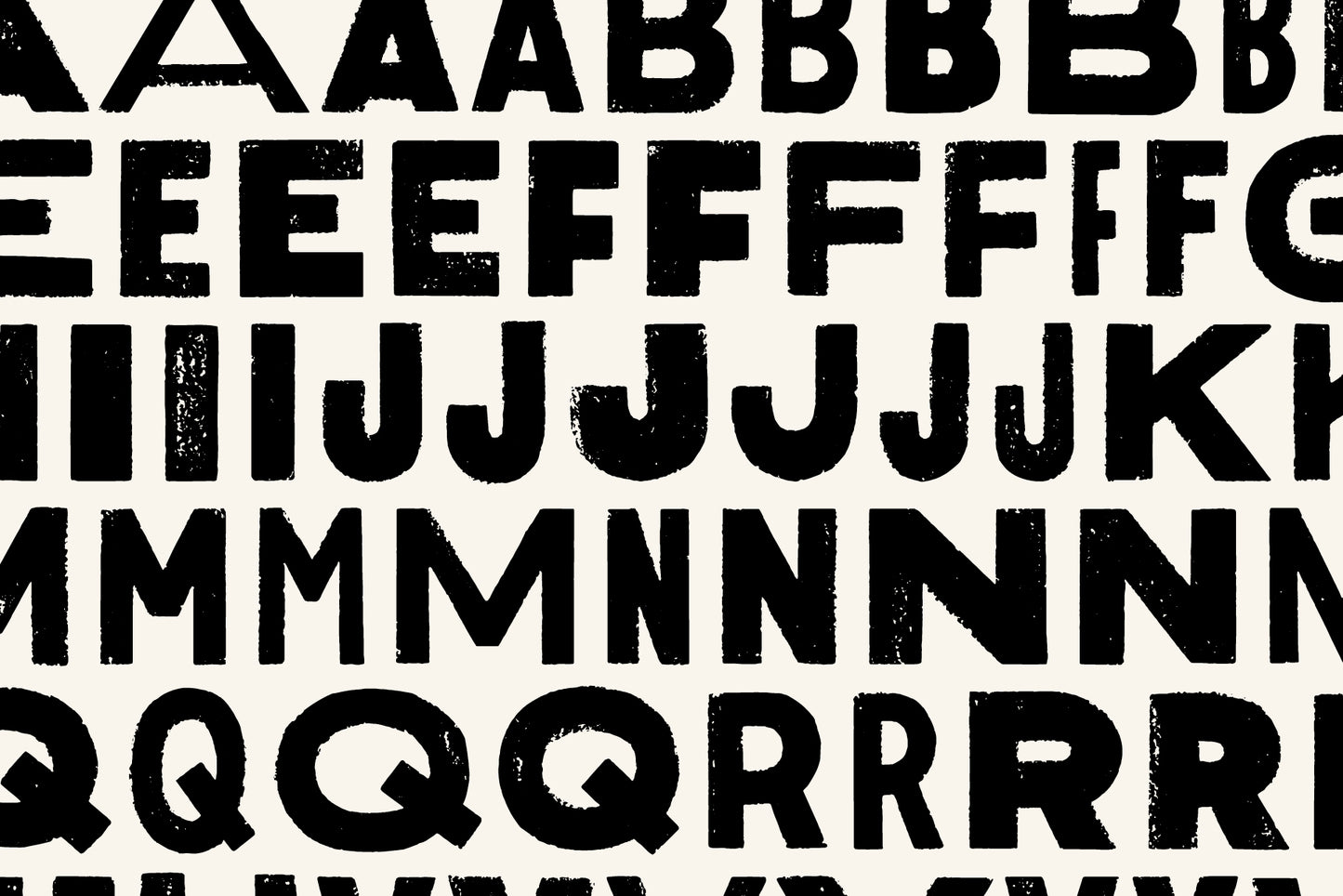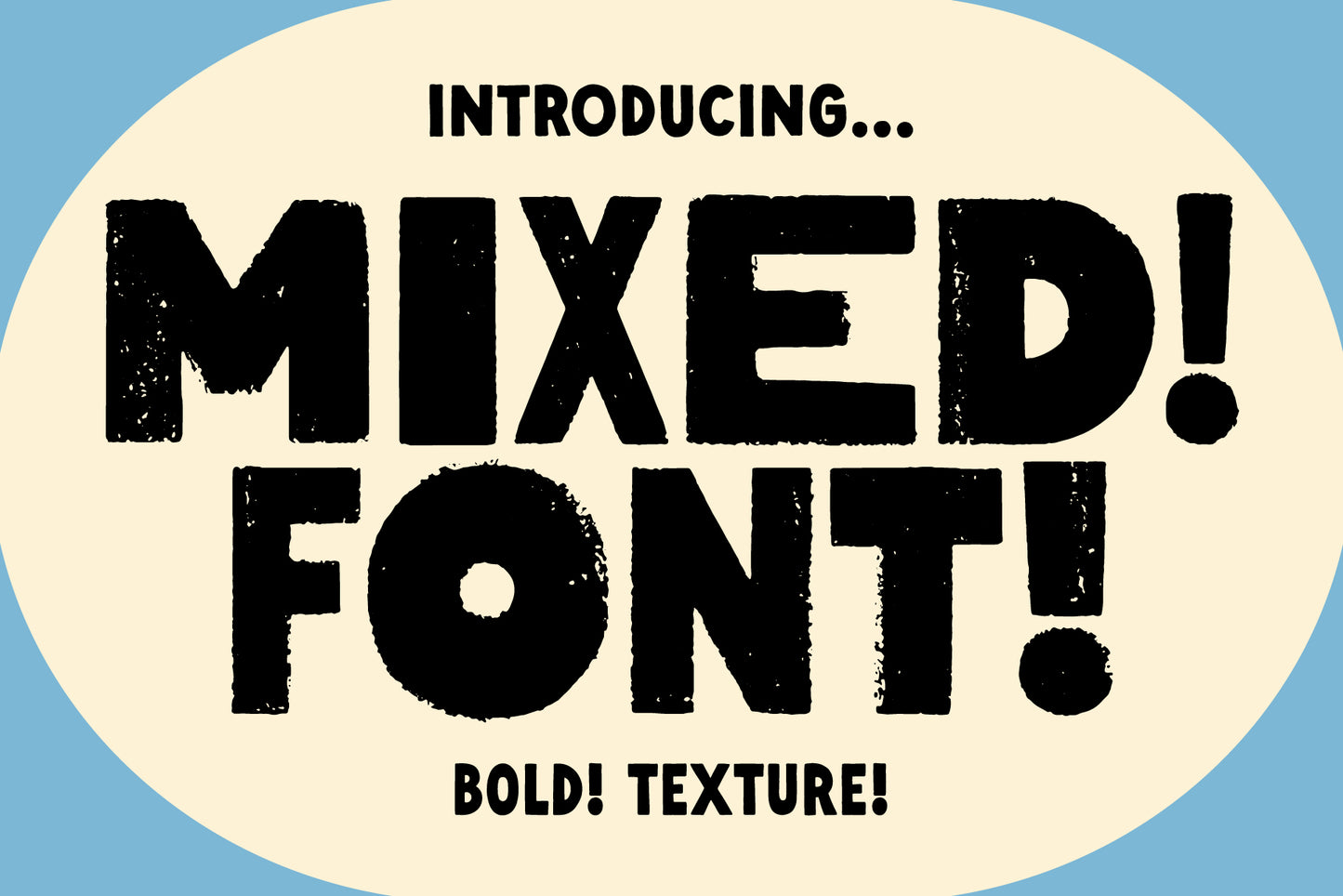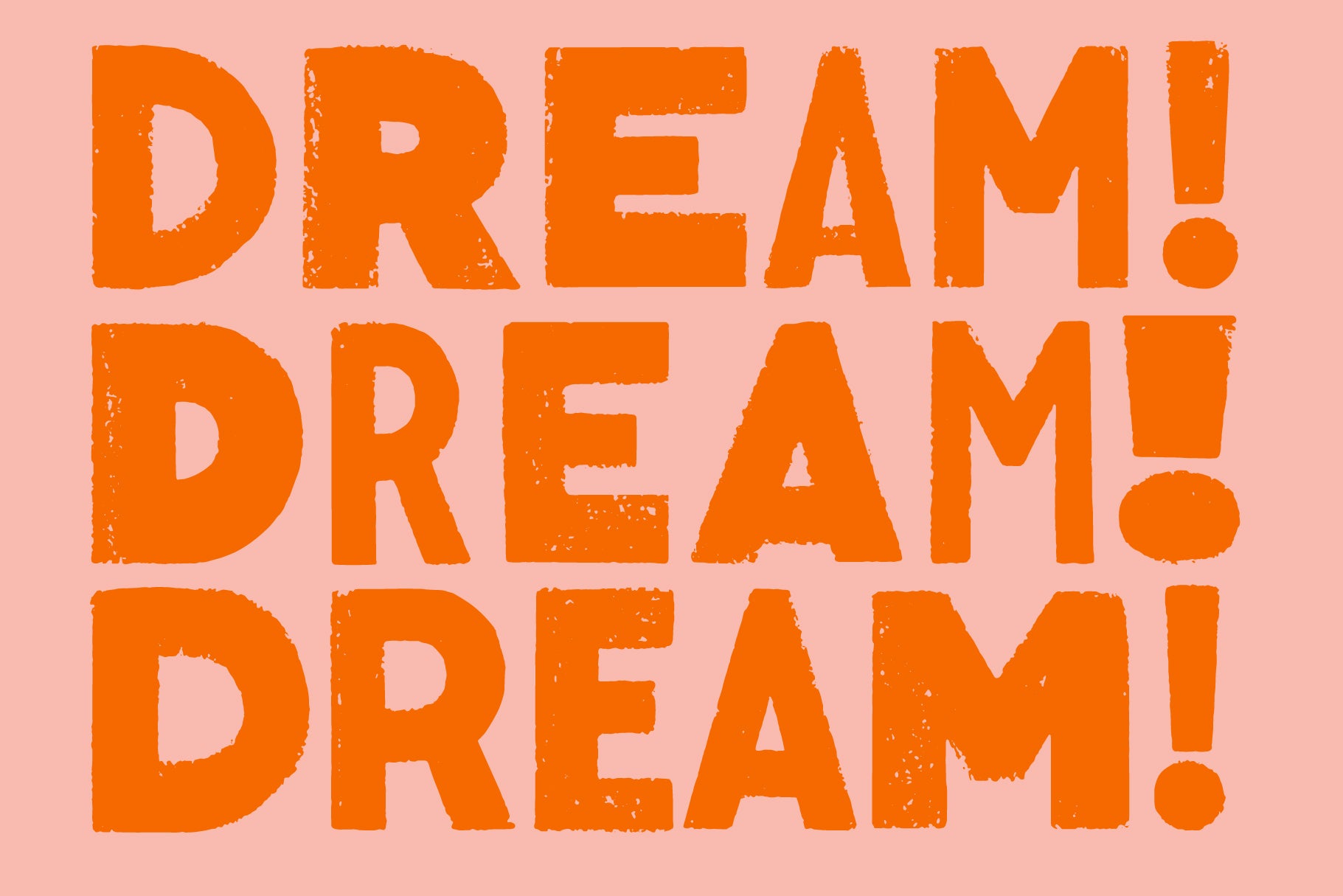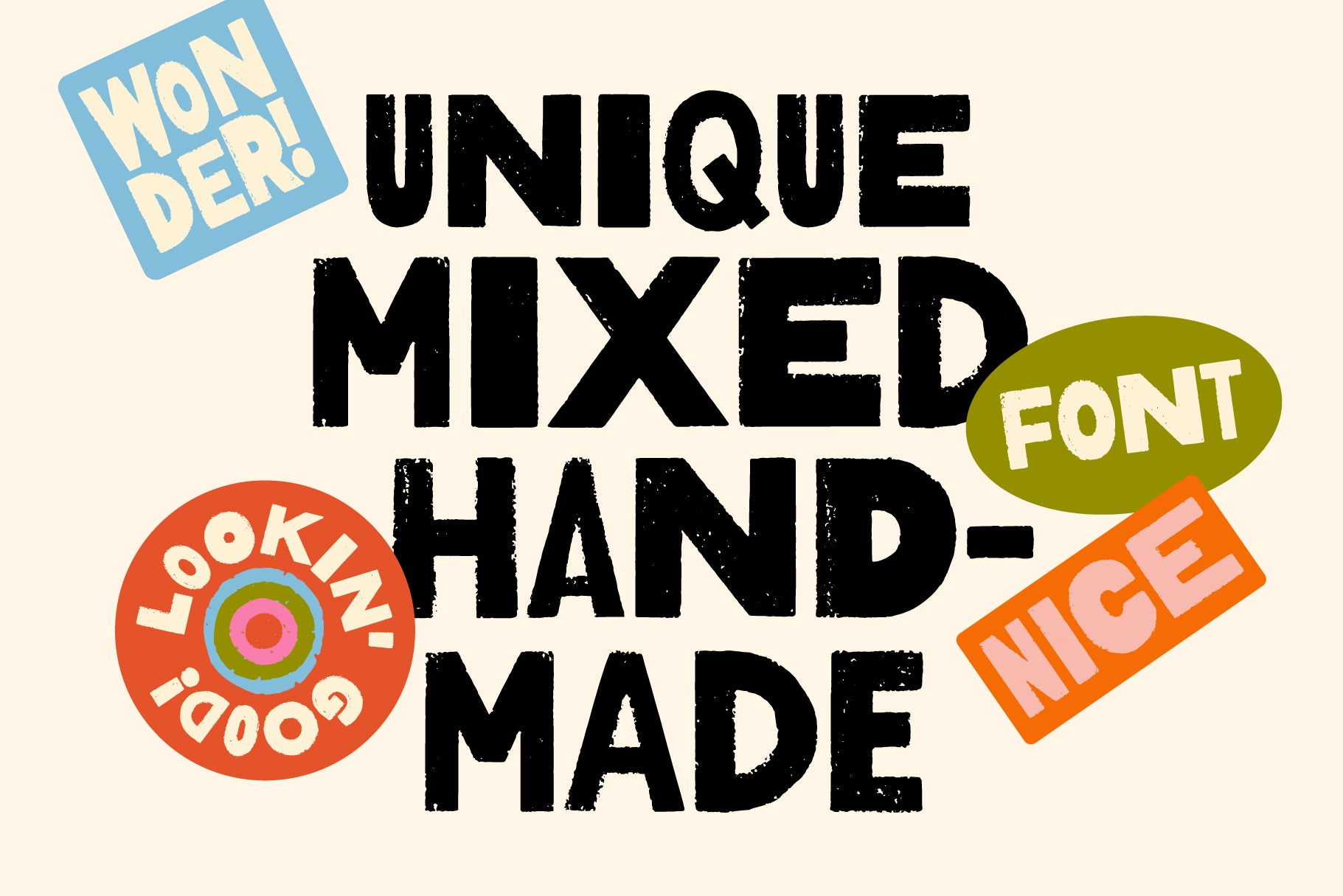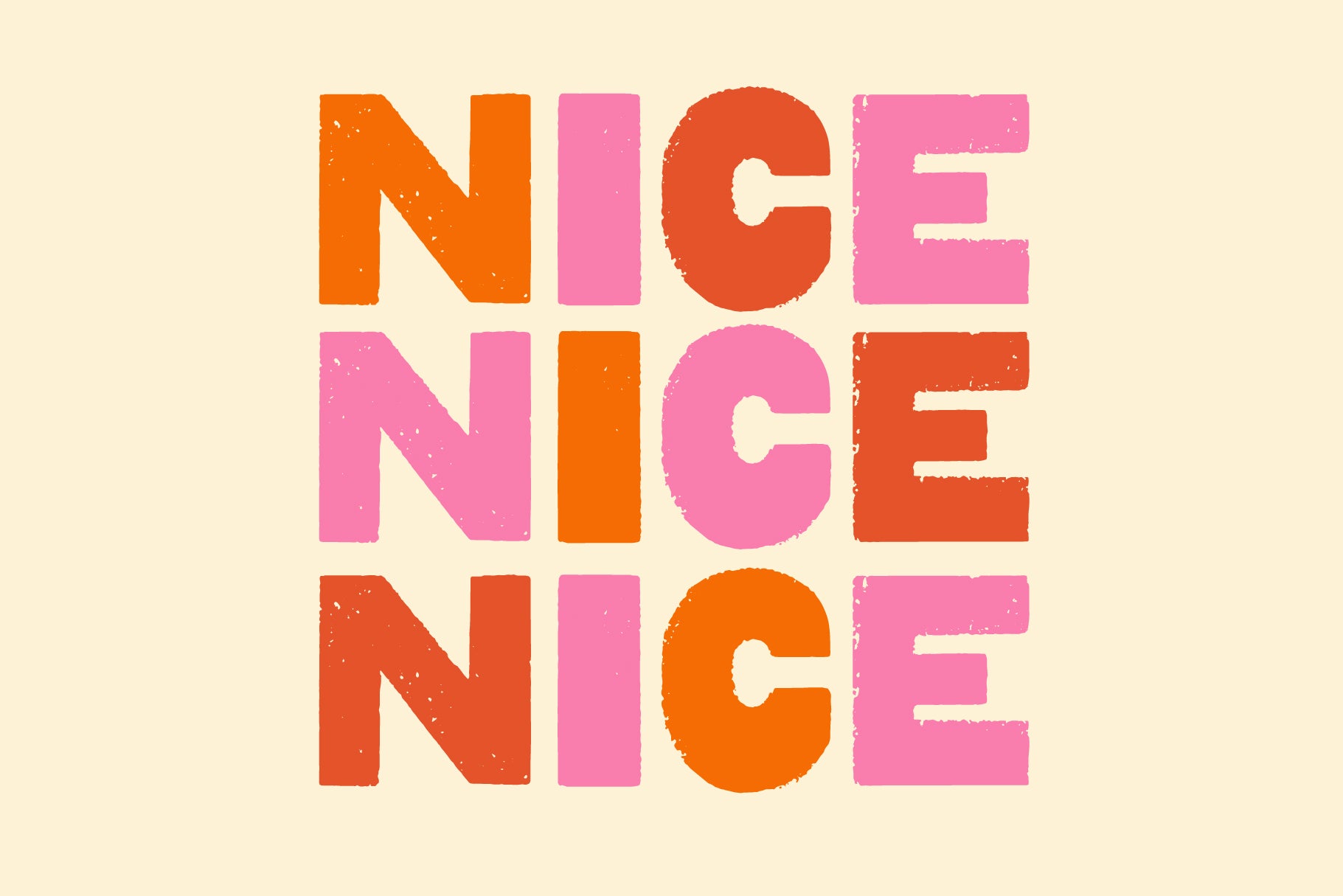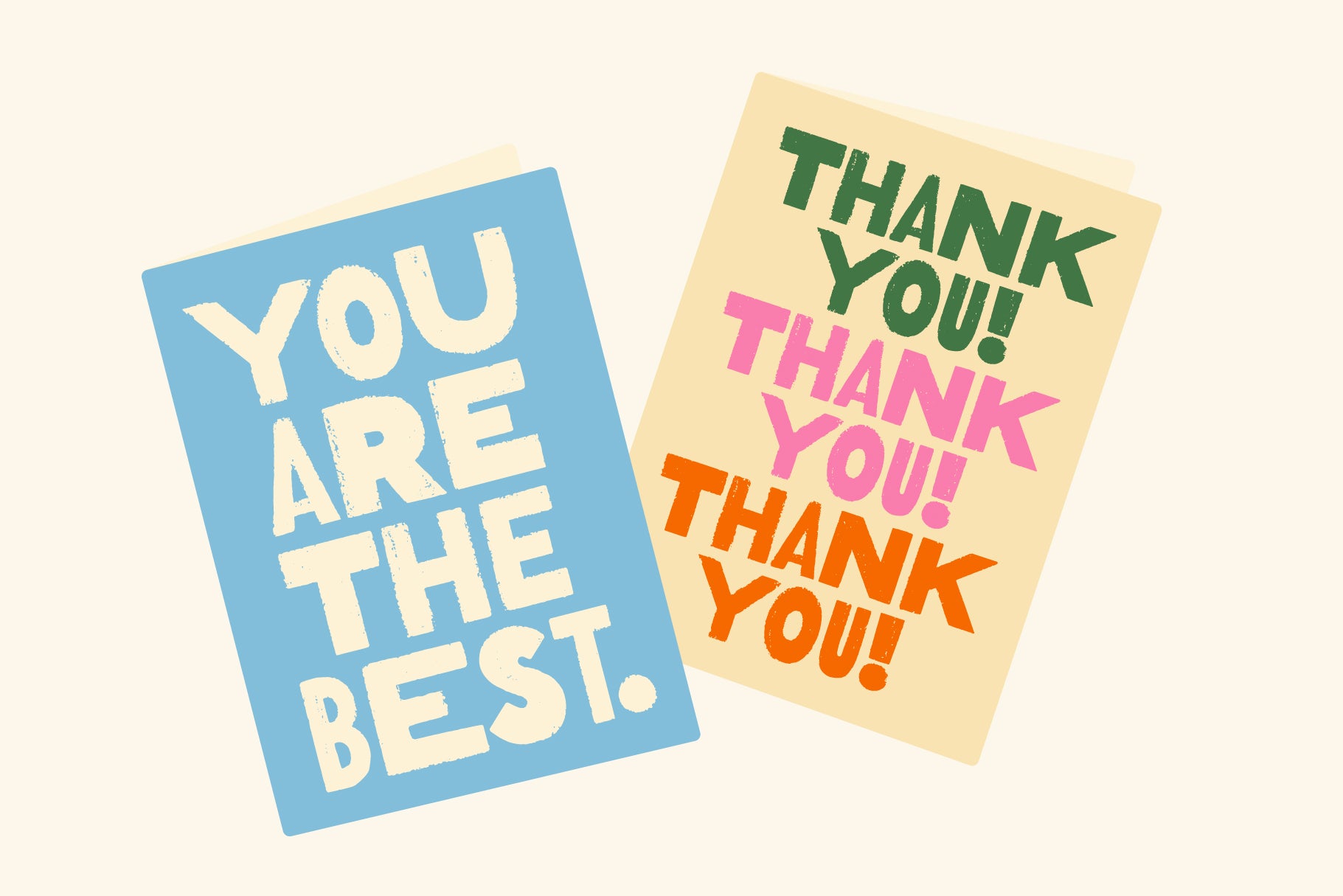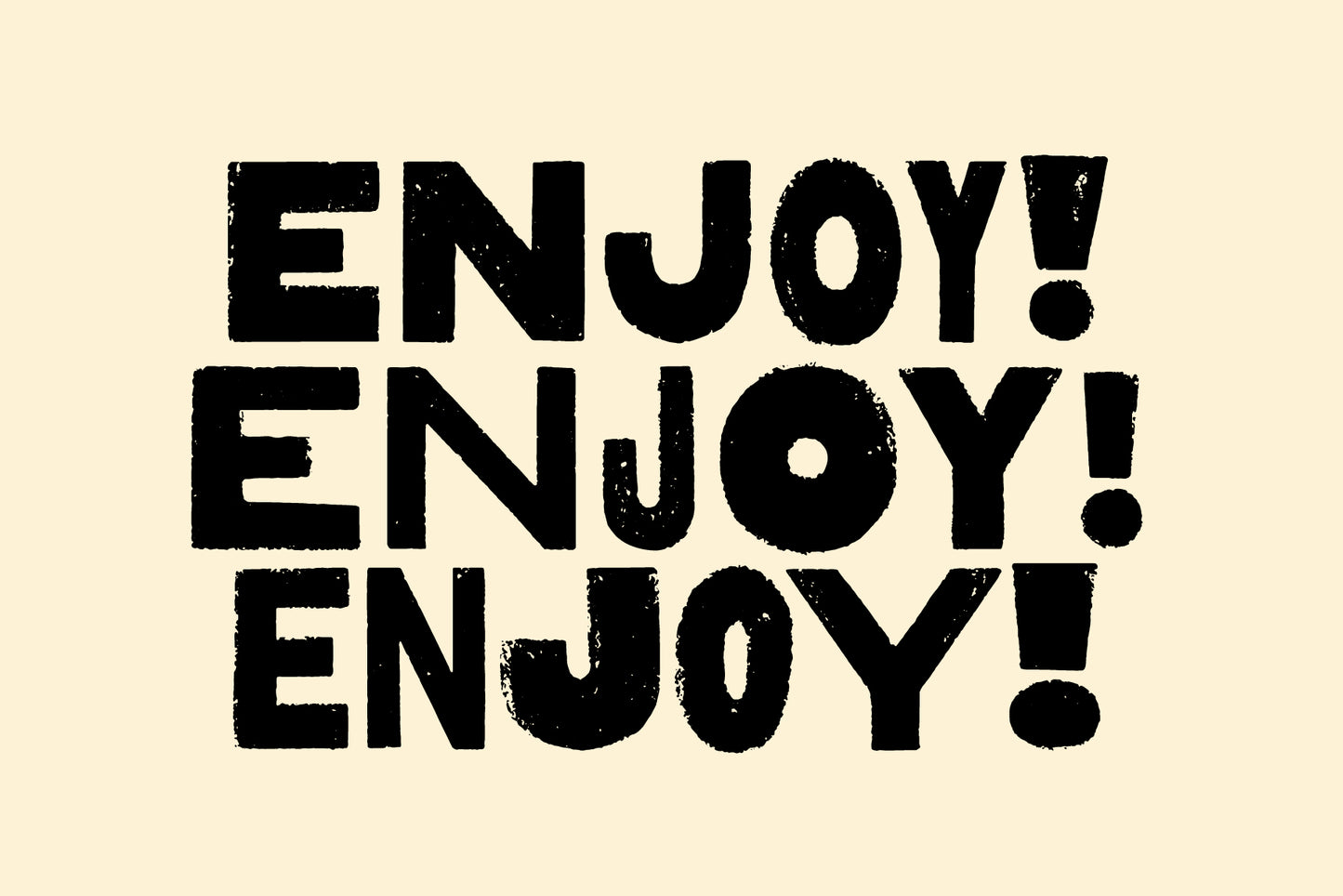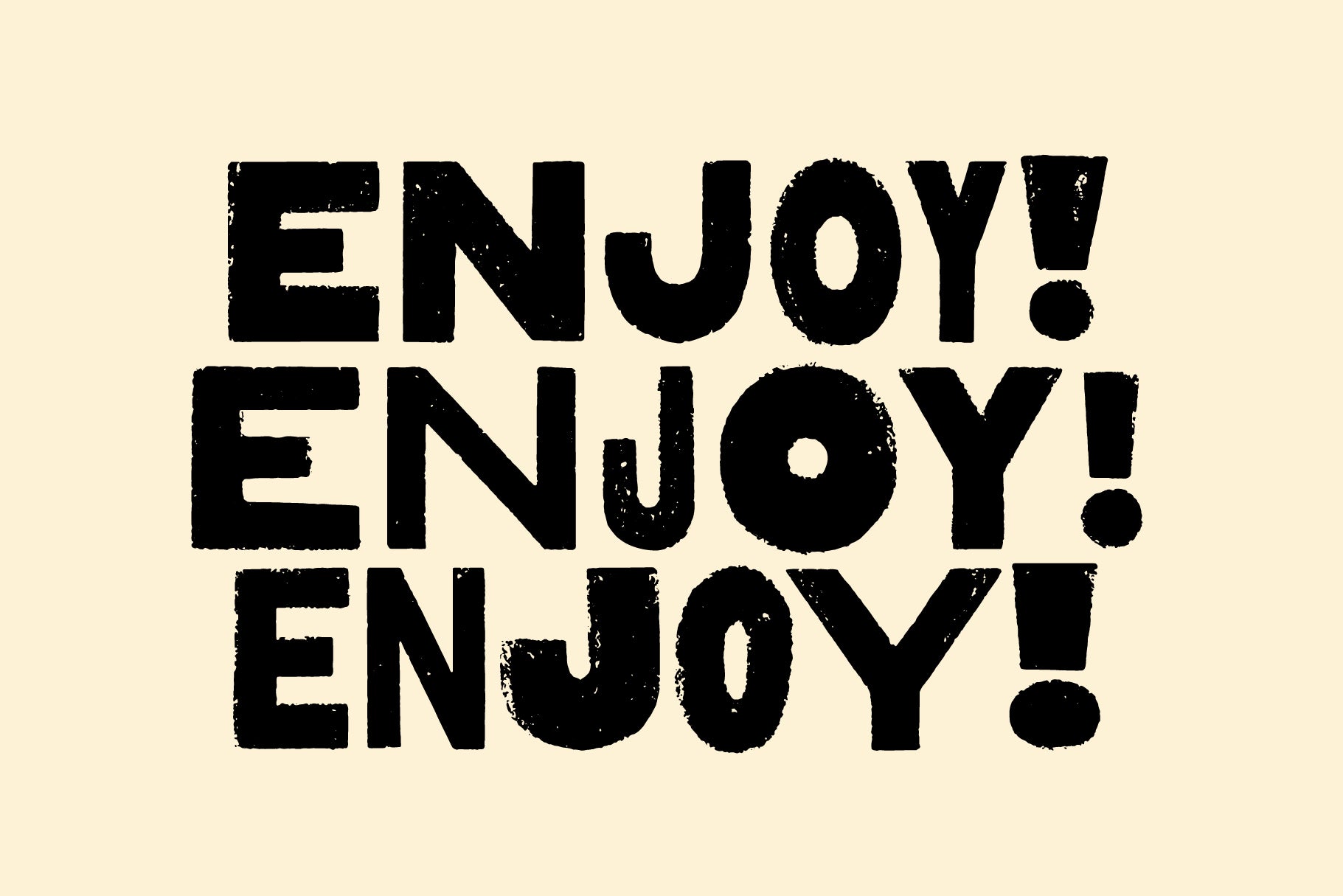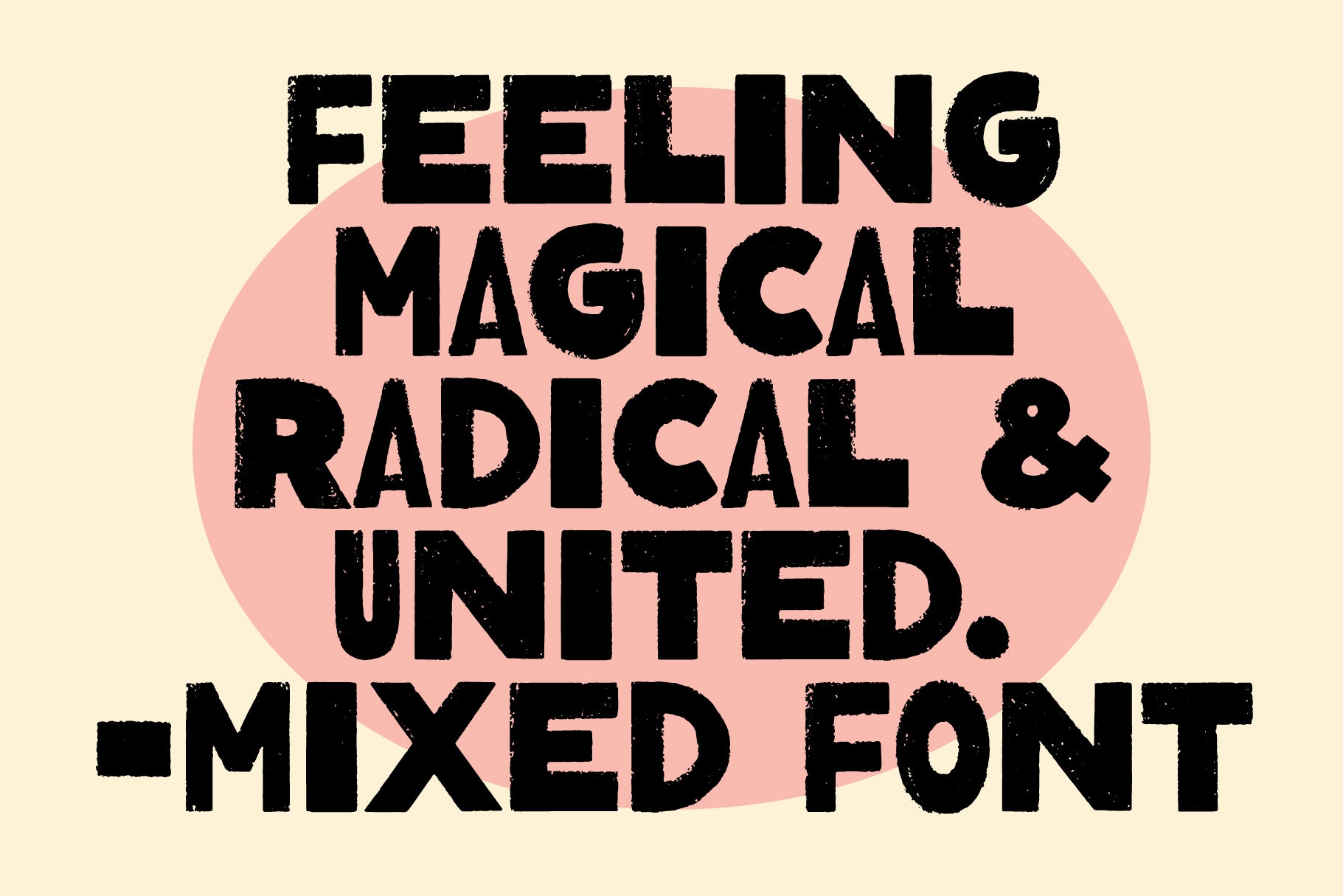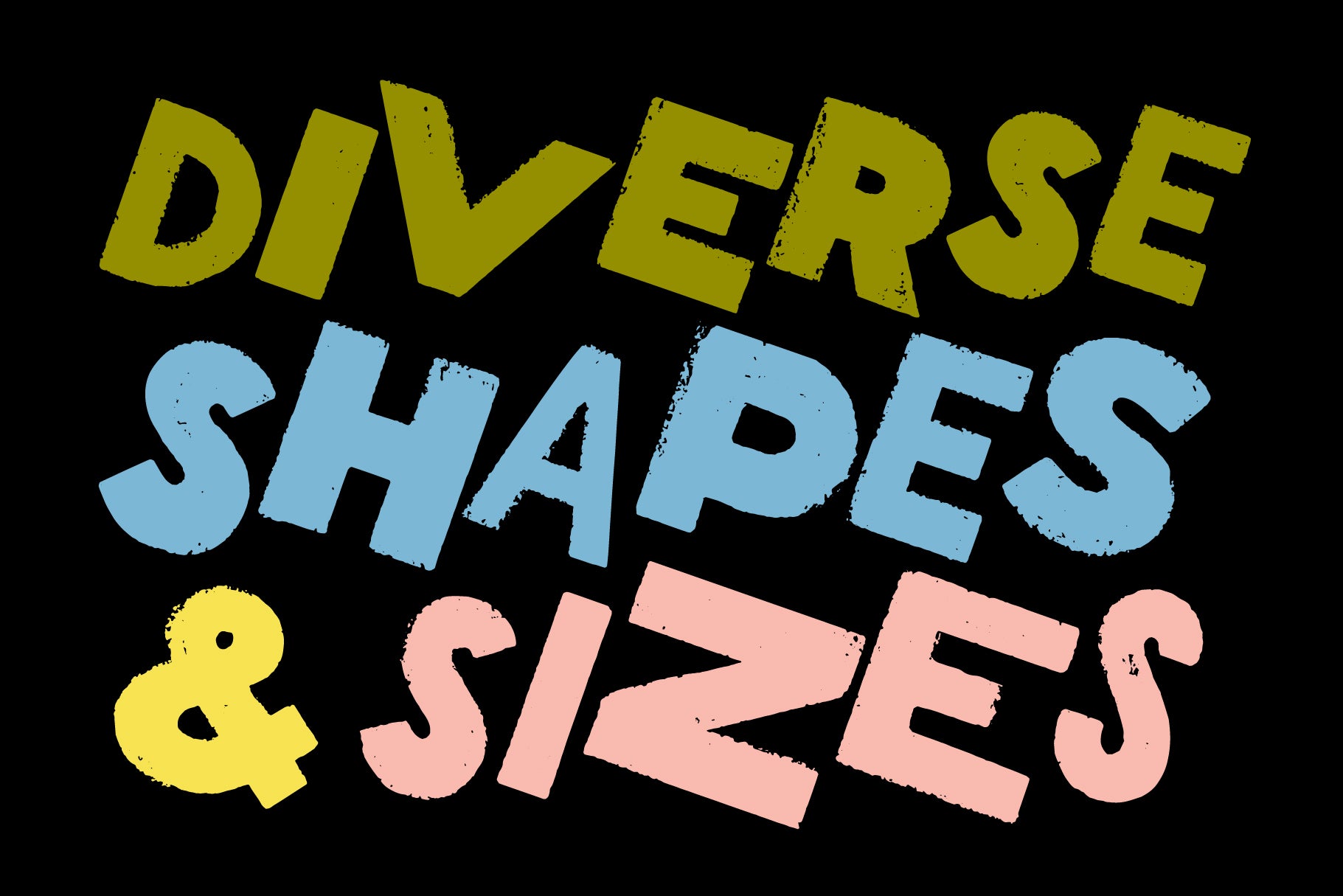
Mixed Font - Bold Textured Hand-lettered Sans
A hand-lettered uppercase font inspired by imperfect printed retro and vintage signs.
Includes lots of alternates so you can mix and match as much as you want. I drew each character by hand, including alternates. Looks great for logos, quotes, art, signs, titles, and a handmade touch. Enjoy!
- Uppercase A–Z
- Numbers, Symbols & Punctuation
- Alternates